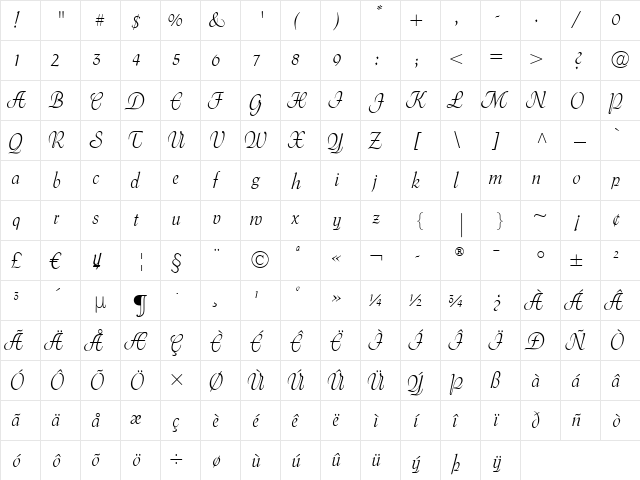
Menuet script Regular
| Foundry | Gophmann A.L |
| Designer | Gophmann A.L. |
Design Context for Menuet script Typeface
Menuet script brings a calligraphic fluidity to the page — its connecting strokes and expressive curves give it an unmistakably human quality.
Font Pairing: Combine Menuet script with a simple geometric sans for maximum contrast — the tension between flowing curves and clean structure is a classic typographic pairing.
Pro Tip: Pair Menuet script with a clean sans-serif for supporting text. The contrast between fluid script and geometric structure creates an elegant typographic hierarchy.